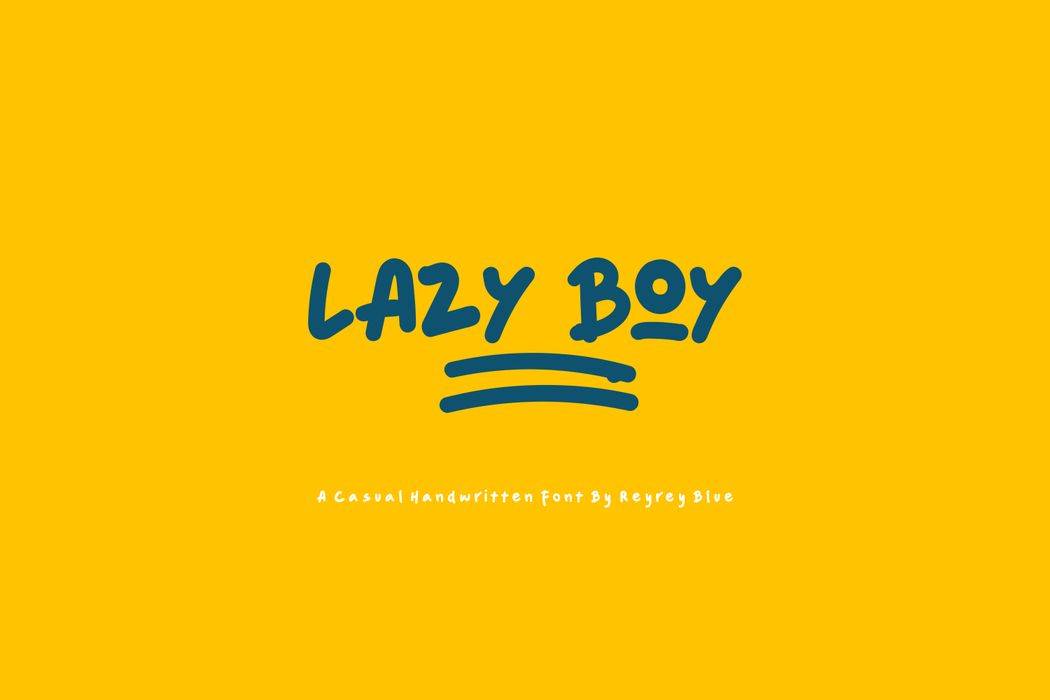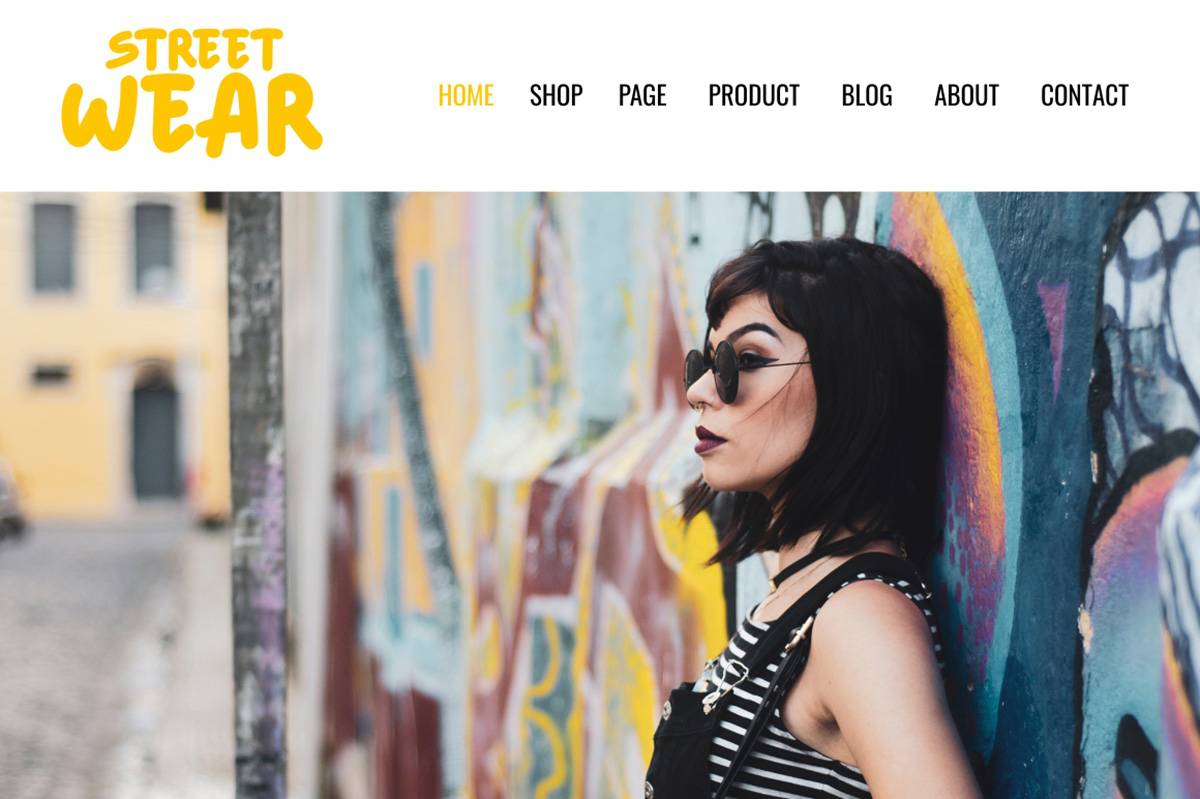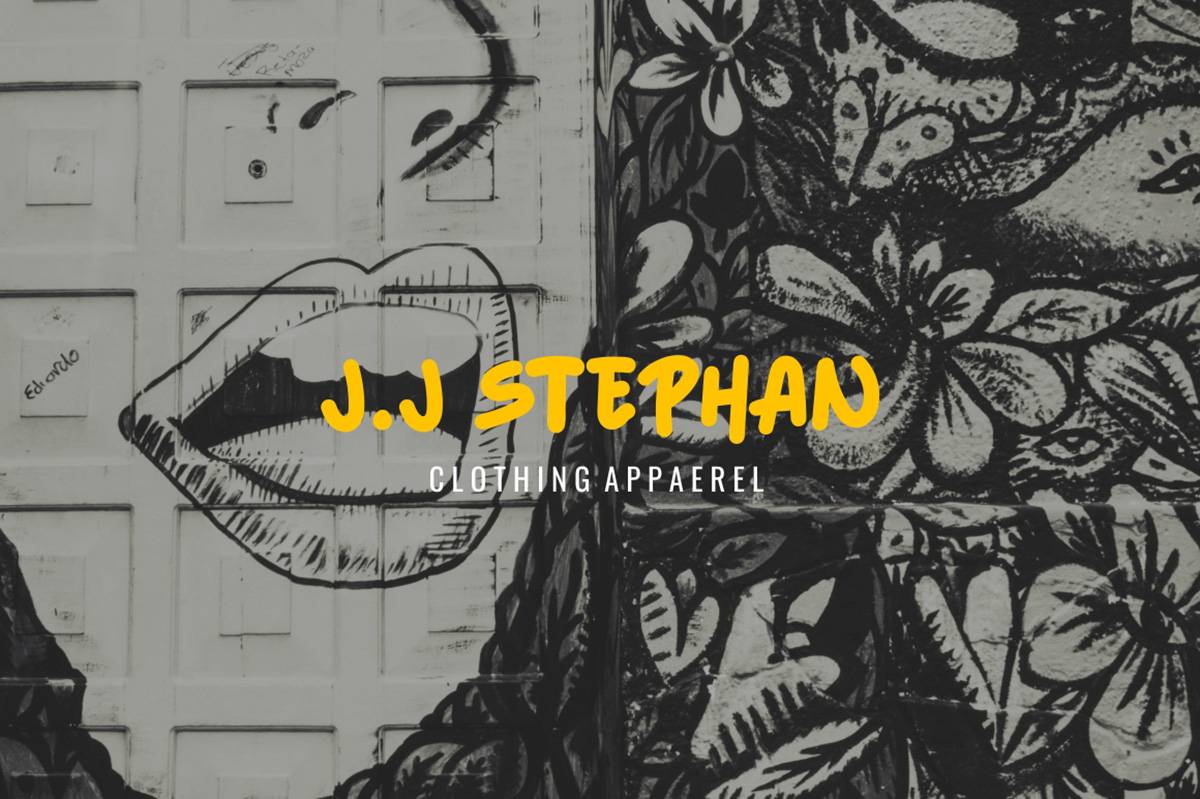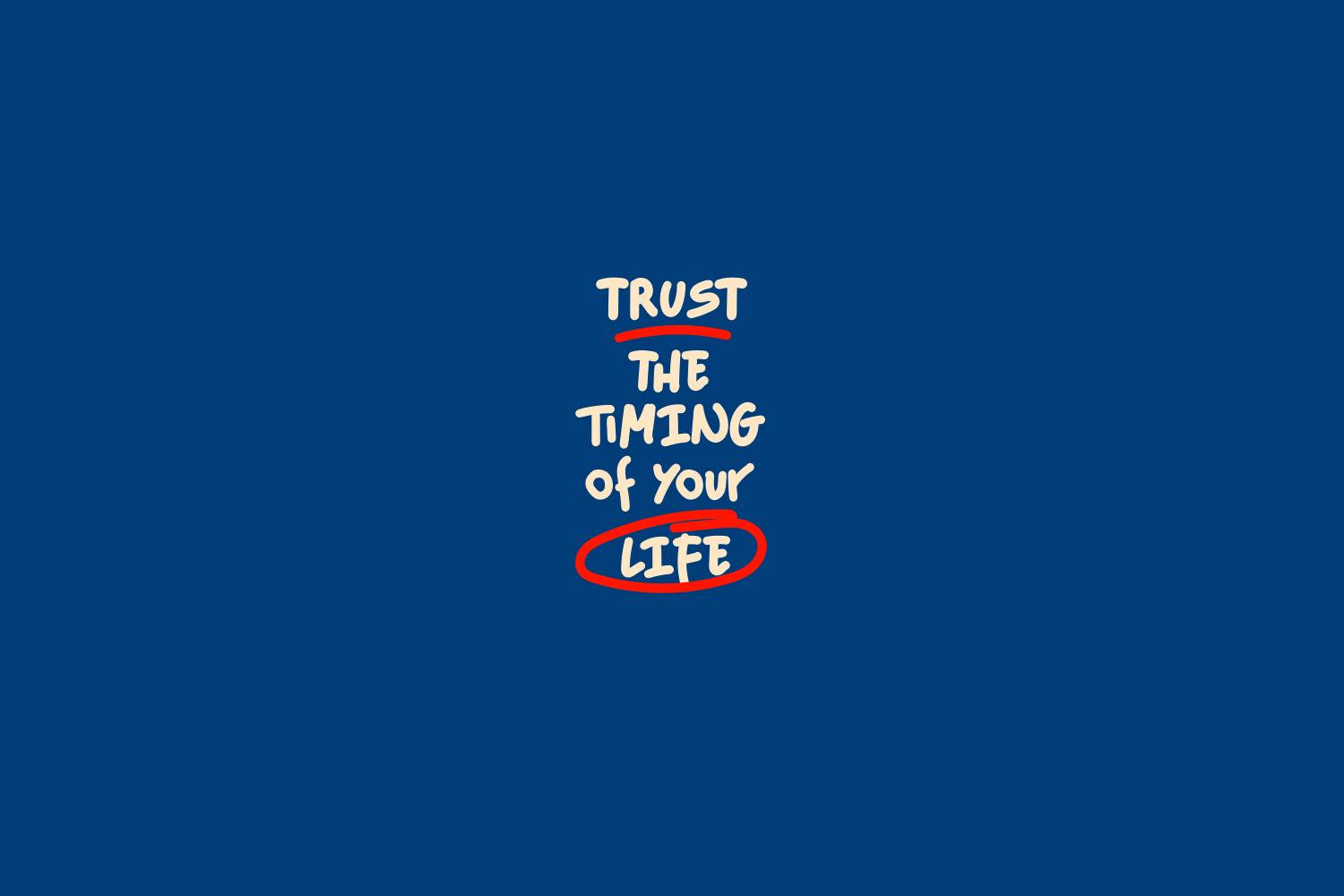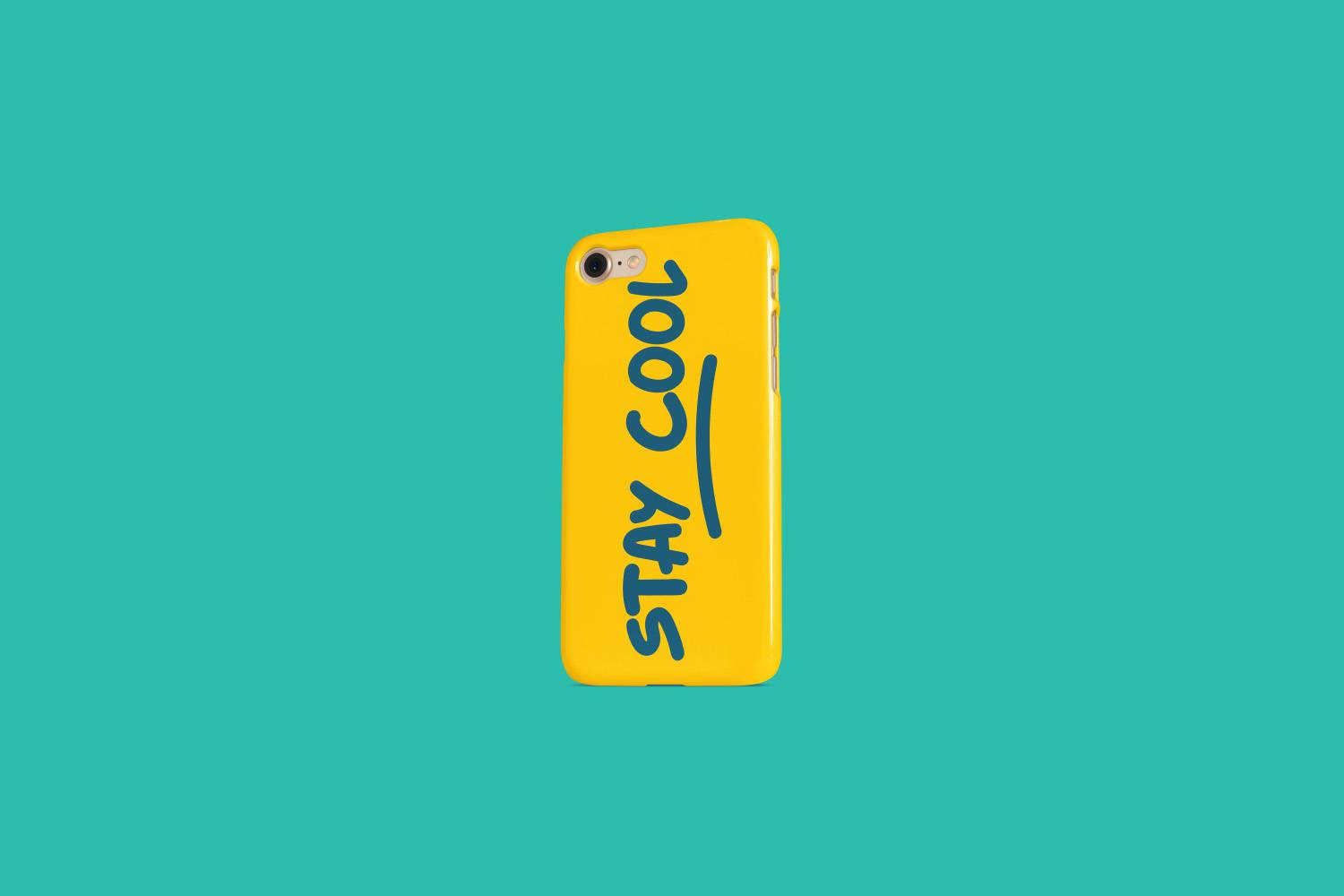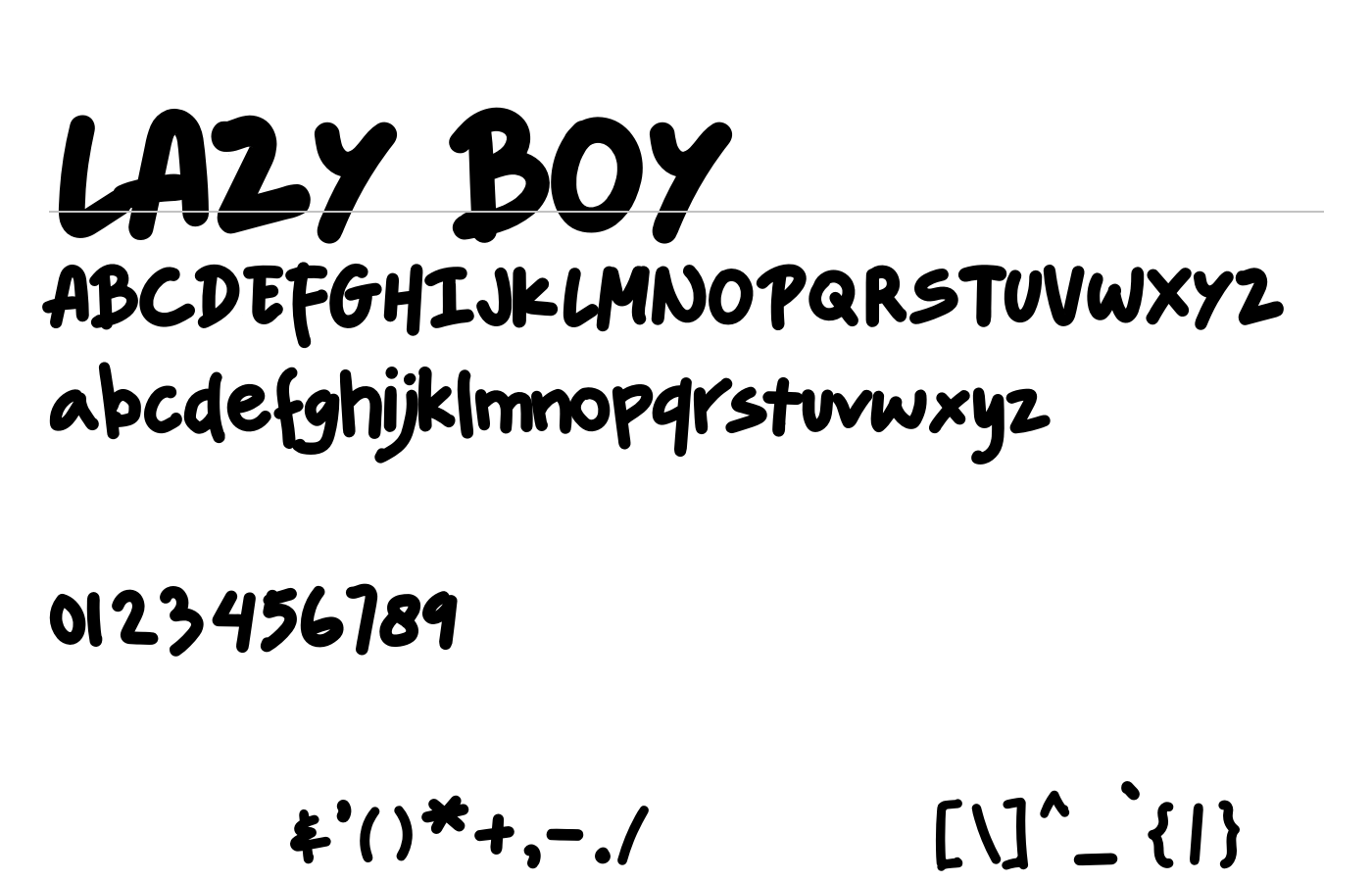
Lazy Boy is a playful, casual handwritten sans-serif font with a bold weight and a friendly, organic feel. Its rounded, irregular strokes and lively letterforms create an informal charm, making it ideal for fun, approachable designs like children’s books, casual branding, or creative posters. This font’s relaxed personality adds warmth and spontaneity, perfect for projects seeking a personal and cheerful touch.
Lazy Boy Font
About Lazy Boy Font